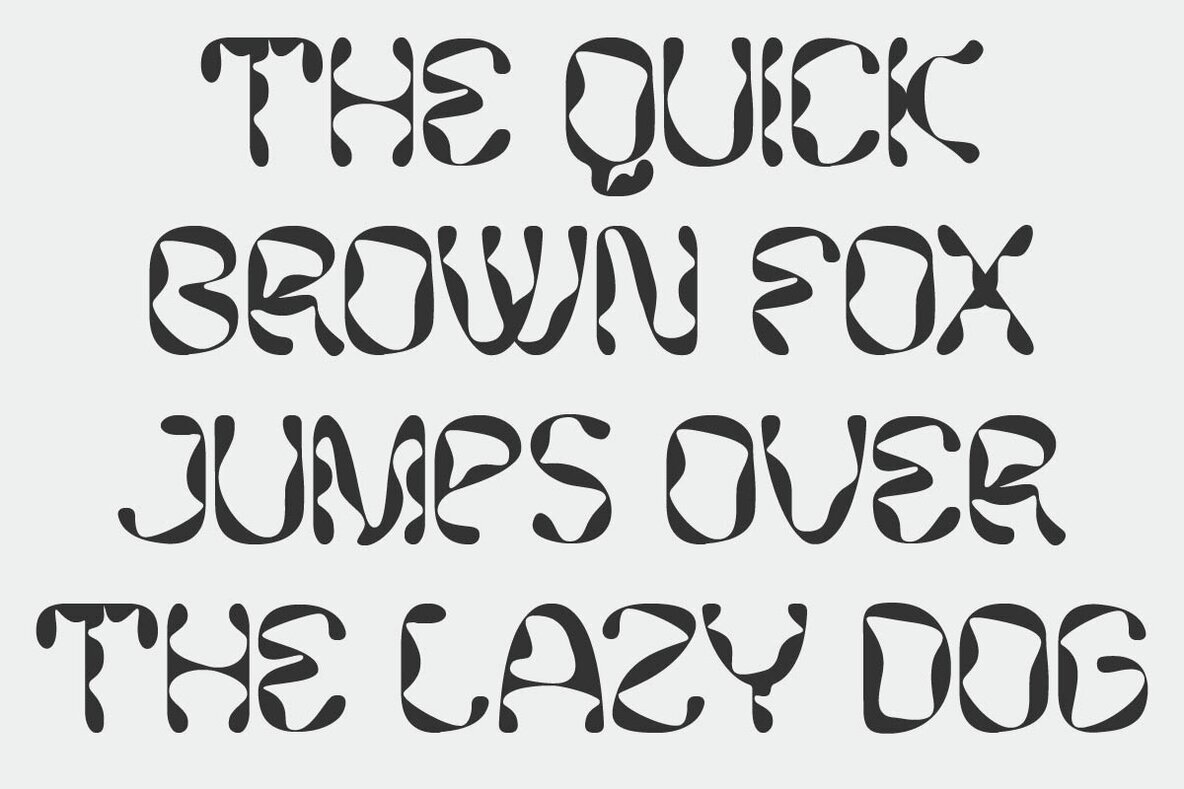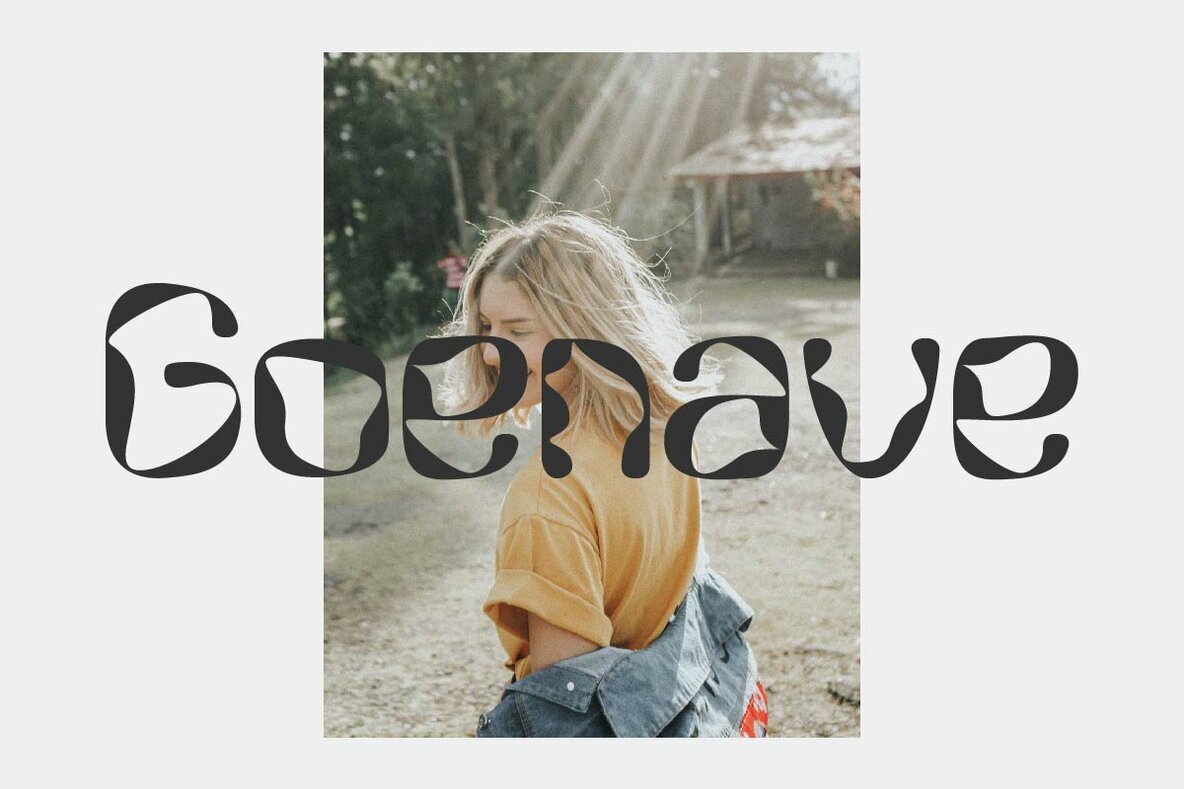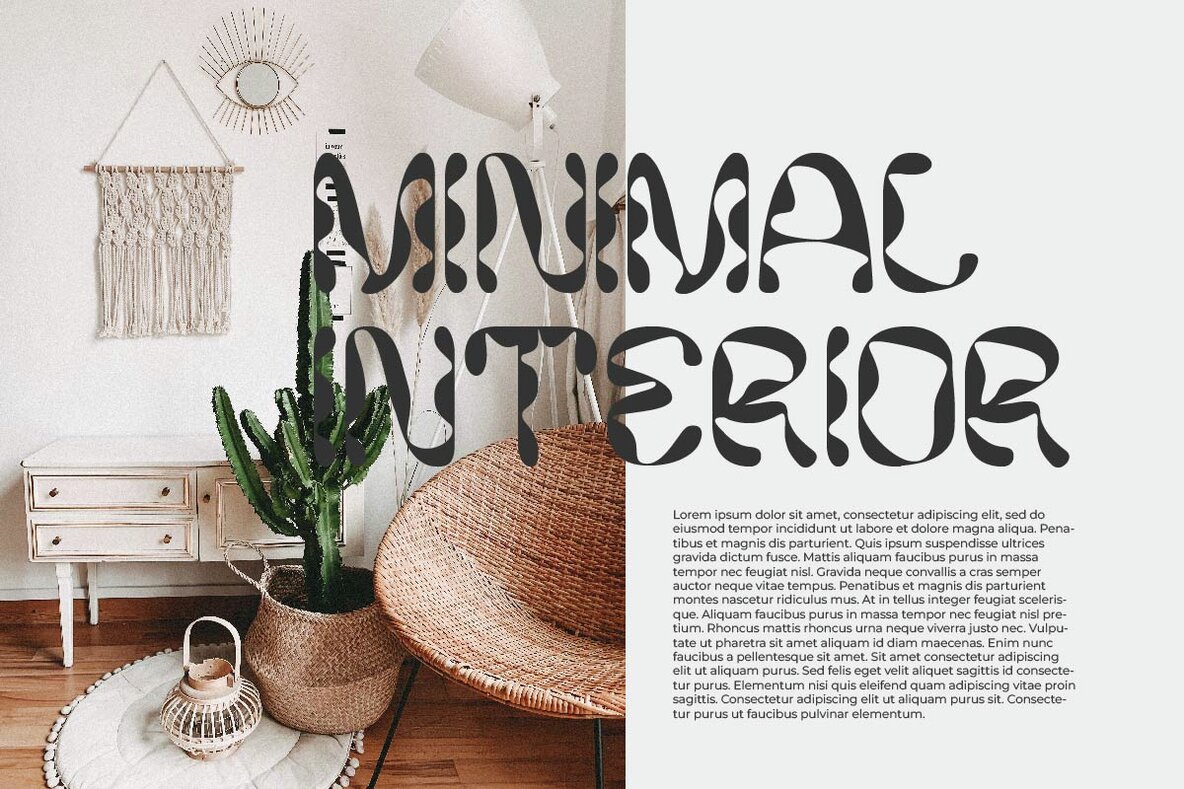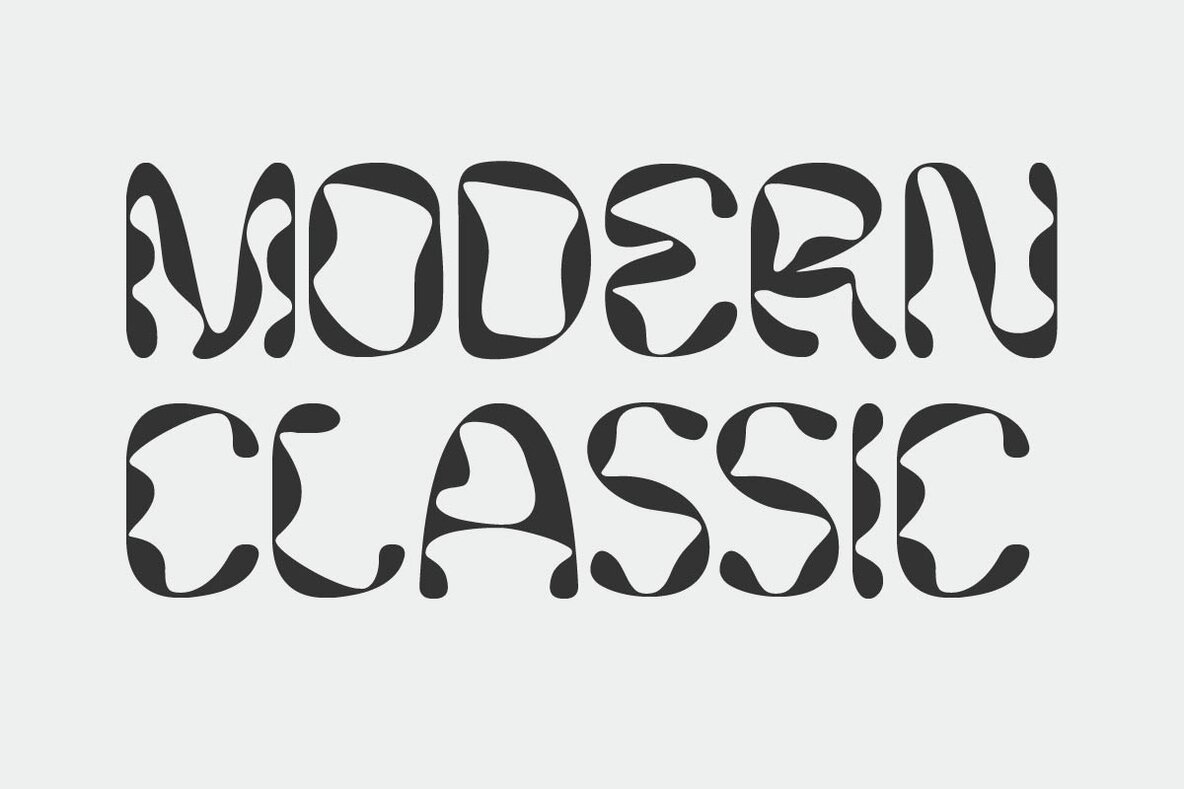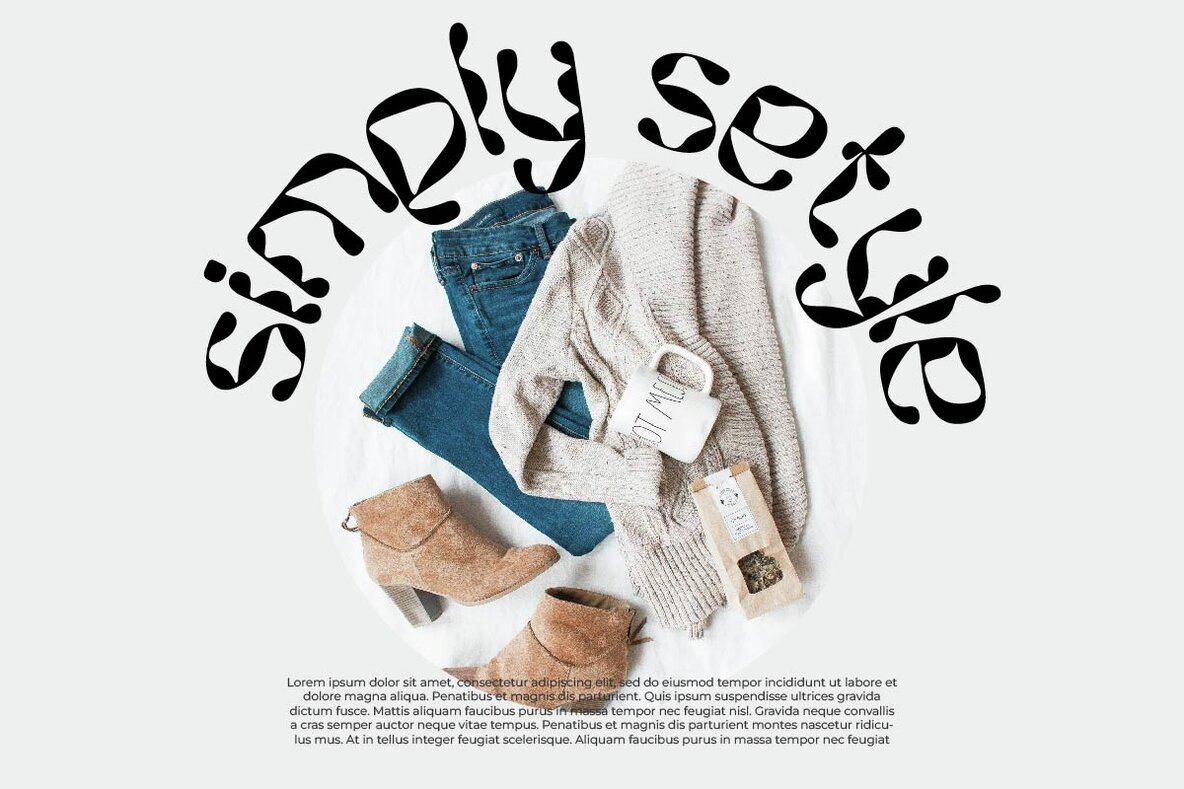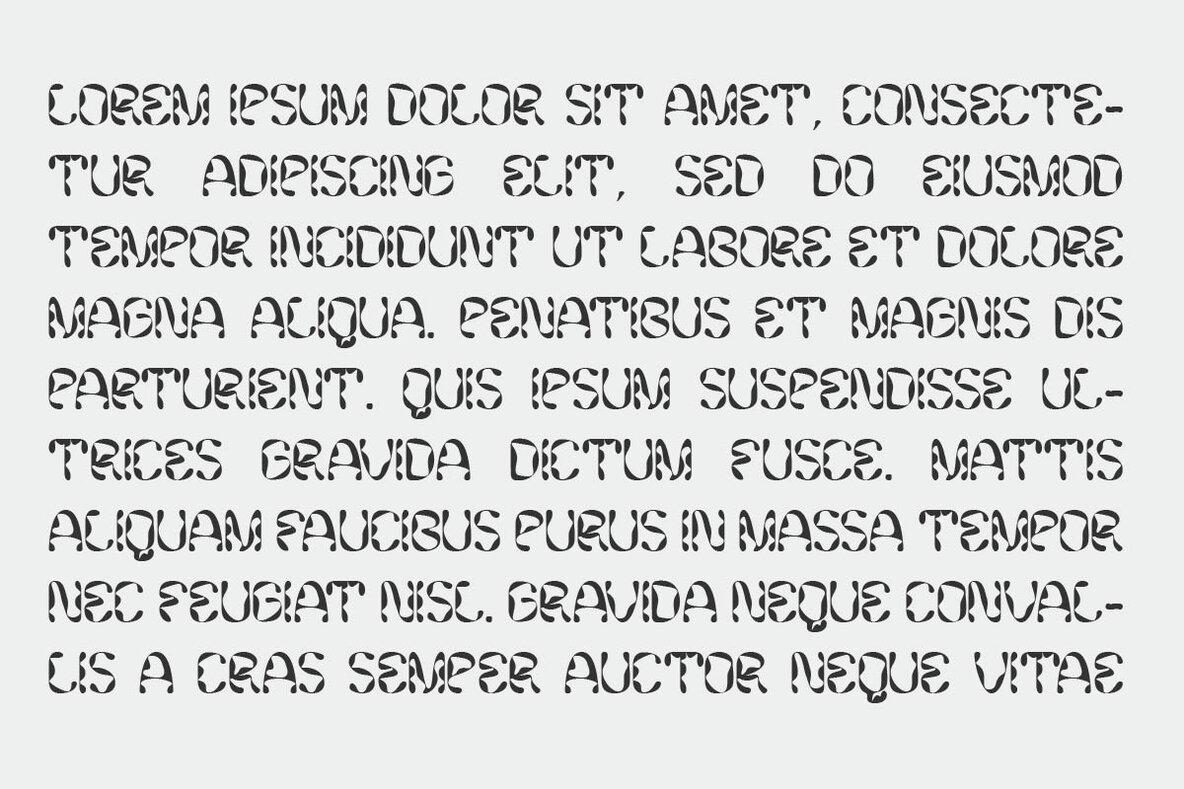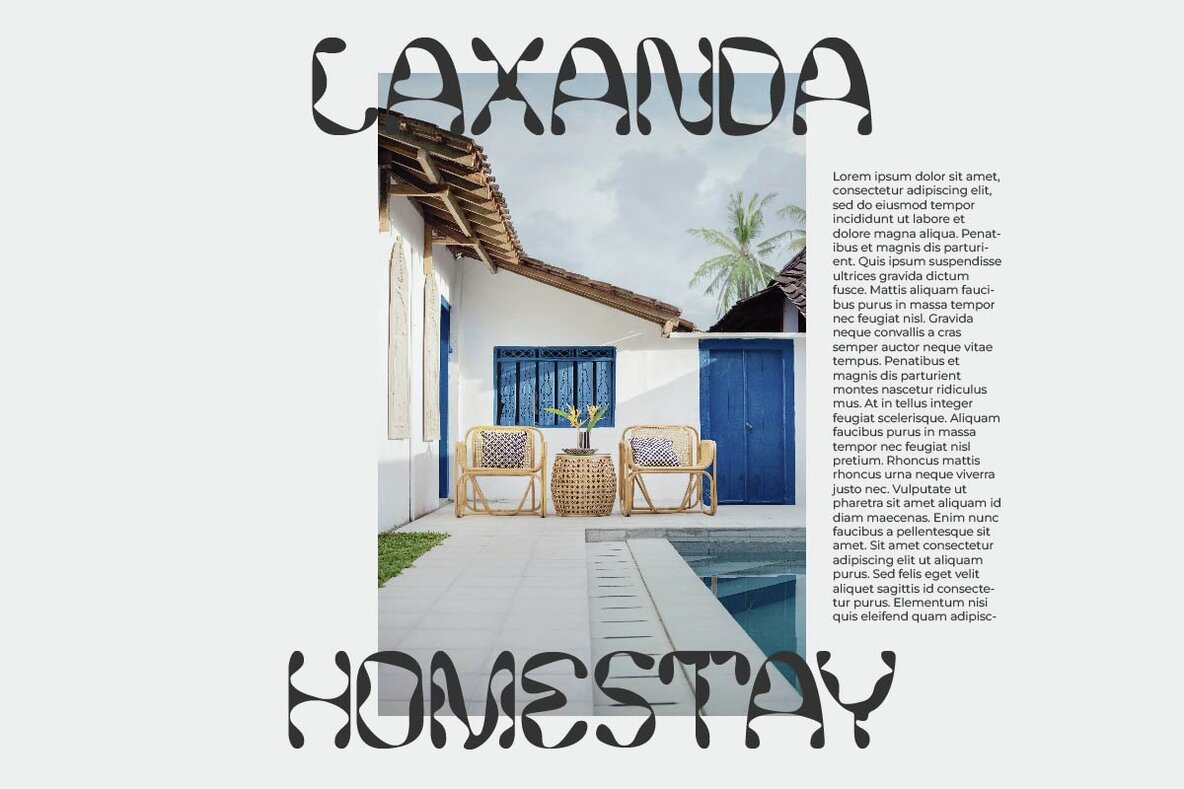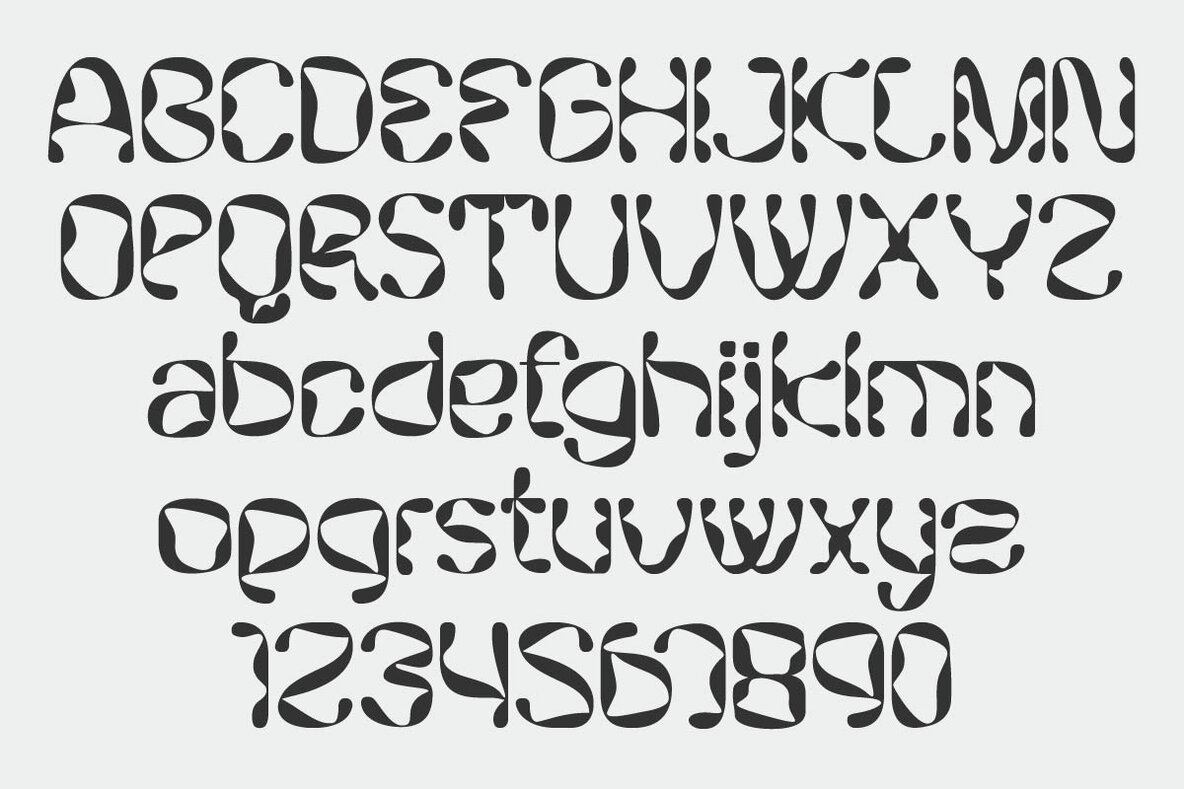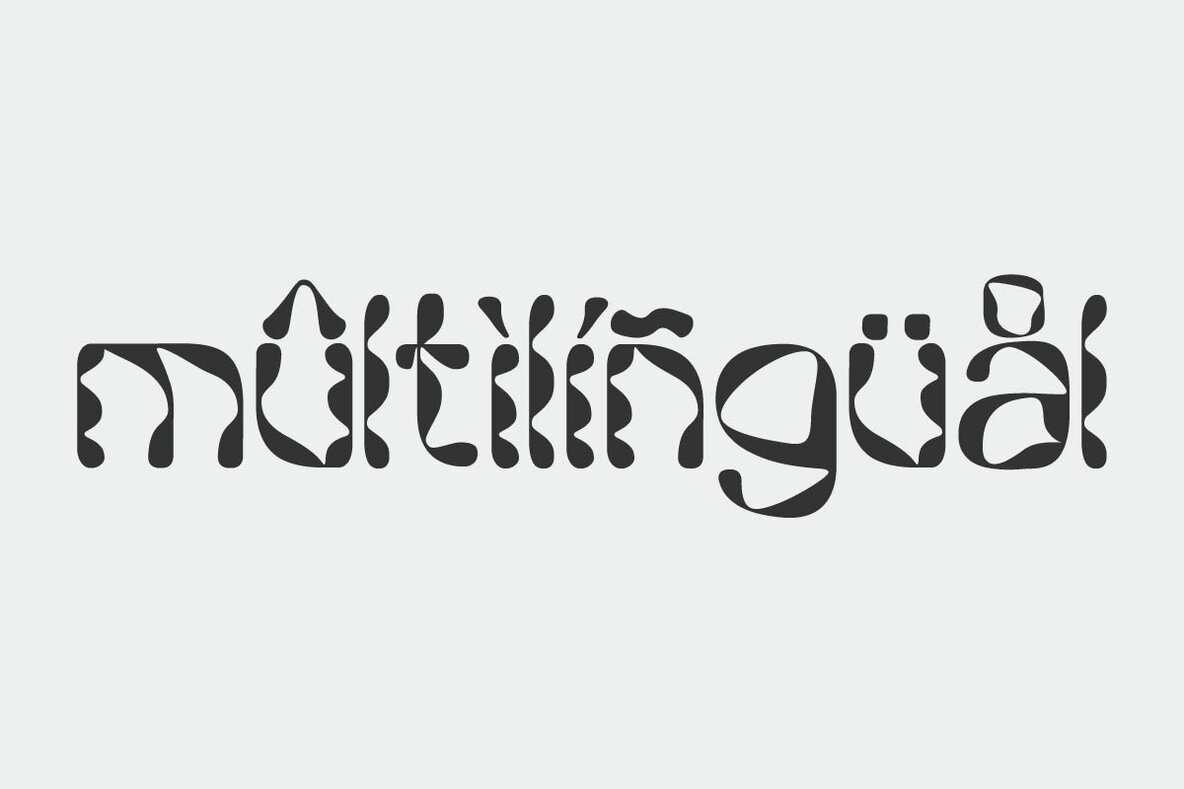
Panelyn Font
Panelyn Regular
Panelyn is a modern display font with a classic touch, exuding elegance and exclusivity, making it perfect for creating captivating fashion brand identities. Crafted with a harmonious blend of contemporary and traditional elements, this font offers clean lines while maintaining grace, adding a touch of luxury to logos, branding, or fashion product designs. Each letter is meticulously designed to create a unique and professional impression. Panelyn offers flexibility in usage, suitable for various design needs such as brand identities, promotional banners, and product packaging. With its mesmerizing visual appeal, Panelyn ensures that fashion brands stand out and remain unforgettable.